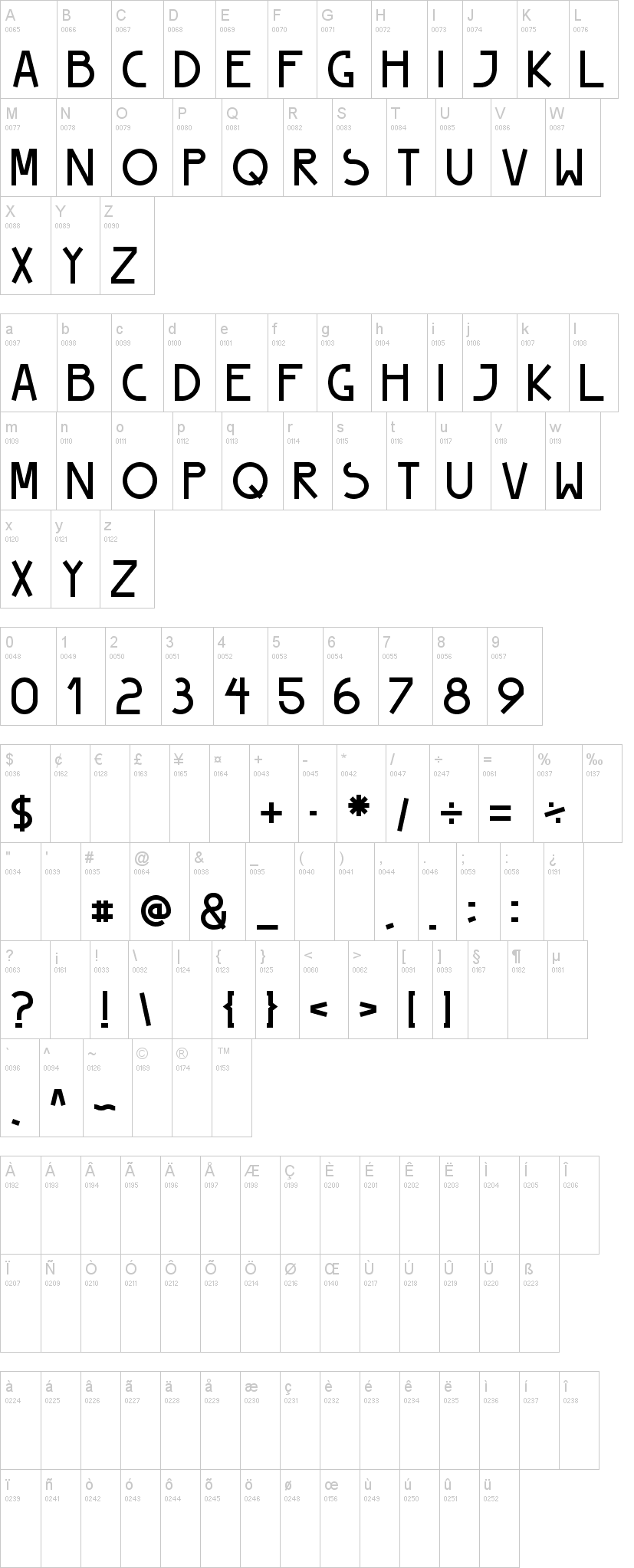
Шрифт Peyo
PEYO is a playful, uppercase, geometric sans serif designed
for display type uses such as headlines, posters and titles.
3 other weights are still in progress.